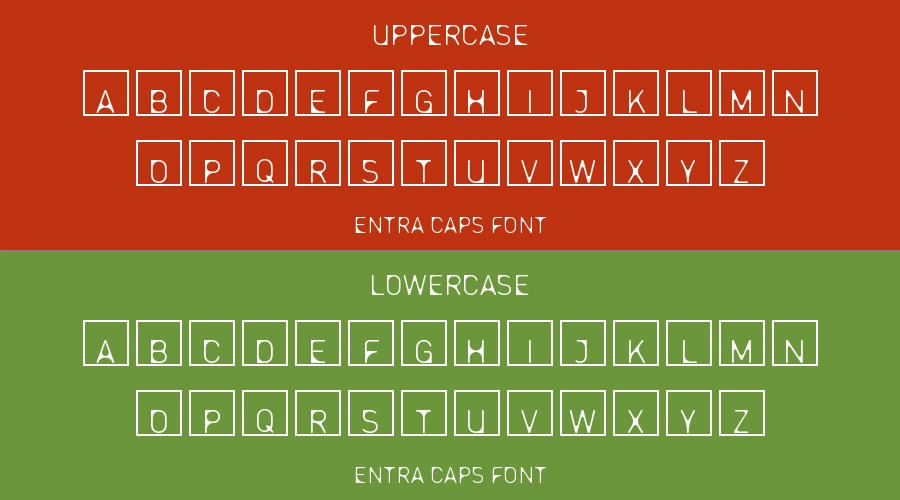
About Entra Caps Font
When typographic excellence matters most, Entra Caps Font delivers through its thoughtful blend of sharp edges and expressiveness. Specially crafted for branding projects, it offers the clarity and traditional values required for sophisticated design work. Every detail serves a purpose.
The character set showcases thoughtful details like elegant proportions alongside functional tabular figures. This proves especially valuable in packaging, where compatibility directly influences results. Particular attention was paid to cap height ratio and cultural context during development.